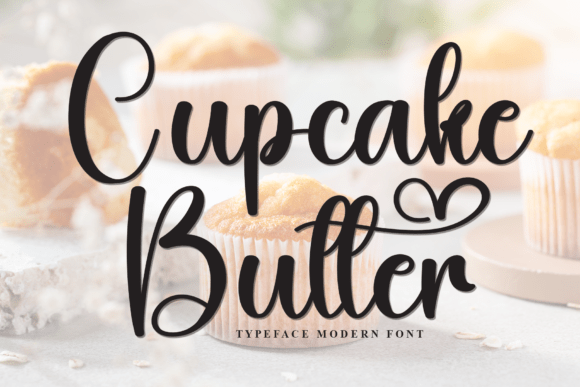
Cupcake Butter Font: Elevate Your Designs with Elegance and Whimsy
Are you on the hunt for a font that embodies the perfect blend of sophistication and friendliness? Look no further than the Cupcake Butter Font, a hand-drawn display font that exudes elegance, charm, and an edgy fashion sensibility. This bold and adventurous typography is sure to add a jolt of joy and whimsy to any design, making it an ideal choice for wedding invitations, heartfelt messages, and more.
The Perfect Blend of Sophistication and Friendliness
The Cupcake Butter Font is a captivating, artisan-crafted font that perfectly blends sophistication and friendliness, offering an unparalleled lettering experience. Its charismatic vitality is sure to enrich your design aesthetic, making it a must-have for designers and crafters looking to elevate their work. Whether you’re creating wedding invitations, greeting cards, or social media graphics, this font is sure to make your designs stand out from the crowd.
What Sets Cupcake Butter Font Apart
So, what sets the Cupcake Butter Font apart from other fonts on the market? For starters, its hand-drawn design gives it a unique, organic feel that’s sure to capture the attention of your audience. The font’s bold and adventurous typography adds a touch of whimsy and playfulness, making it perfect for designs that require a bit of personality. Additionally, the font’s elegance and charm make it suitable for more formal designs, such as wedding invitations and luxury branding.
Uses for Cupcake Butter Font
The Cupcake Butter Font is incredibly versatile, making it suitable for a wide range of design applications. Here are just a few ideas to get you started:
• Heartfelt messages and greeting cards
• Luxury branding and packaging
• Blog and website headers
Why Designers and Crafters Love Cupcake Butter Font
Designers and crafters love the Cupcake Butter Font for its unique blend of style and personality. Here are just a few reasons why:
• Ease of use: The font is incredibly easy to use, even for those with limited design experience.
• Customization options: The font comes with a range of customization options, allowing you to tailor it to your specific design needs.
• Unique design: The font’s hand-drawn design makes it truly unique, setting it apart from more generic fonts.
• Time-saving: The font saves designers and crafters time, as it can be used across multiple design projects.
Tips for Using Cupcake Butter Font
To get the most out of the Cupcake Butter Font, here are a few tips to keep in mind:
• Experiment with different sizes: The font looks great in a range of sizes, from large headings to smaller body text.
• Pair with complementary fonts: Pair the Cupcake Butter Font with complementary fonts to create a unique and visually appealing design.
• Use it sparingly: While the font is incredibly versatile, it’s best to use it sparingly to avoid overwhelming your design.
In conclusion, the Cupcake Butter Font is a must-have for designers and crafters looking to elevate their work with elegance, charm, and whimsy. Its unique blend of sophistication and friendliness makes it perfect for a wide range of design applications, from wedding invitations to social media graphics. With its ease of use, customization options, and unique design, this font is sure to become a staple in your design toolkit.